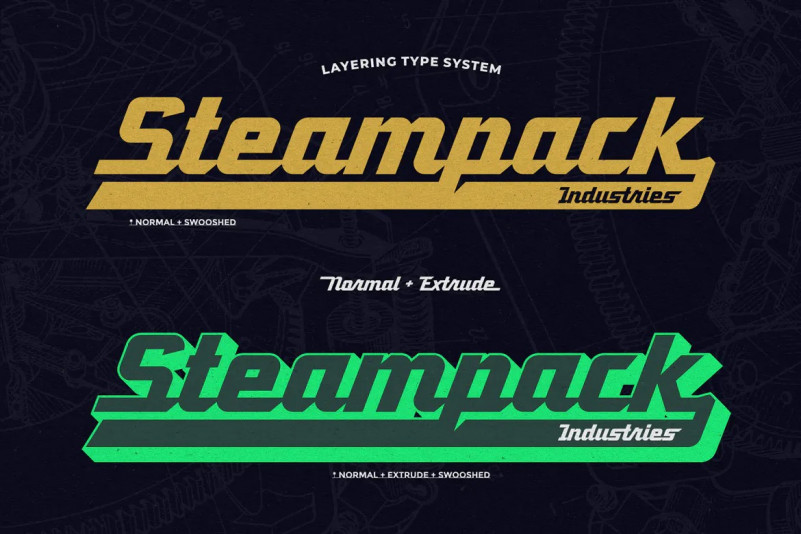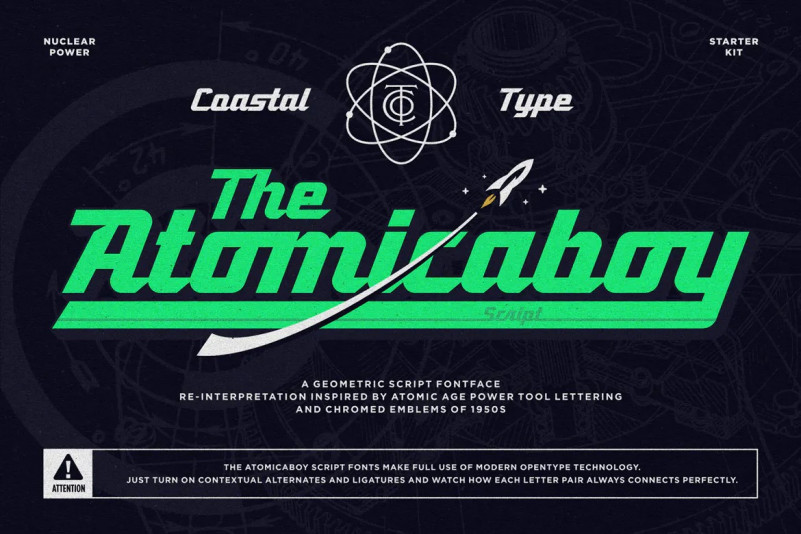
Atomicaboy Font
Atomicaboy is a geometric script font. Re-interpretation inspired by atomic age power tool lettering and chromed emblems of 50’s. The Atomicaboy script make full use of modern technology. Just turn on automatic ligatures and watch how each letter pair always connect perfectly.